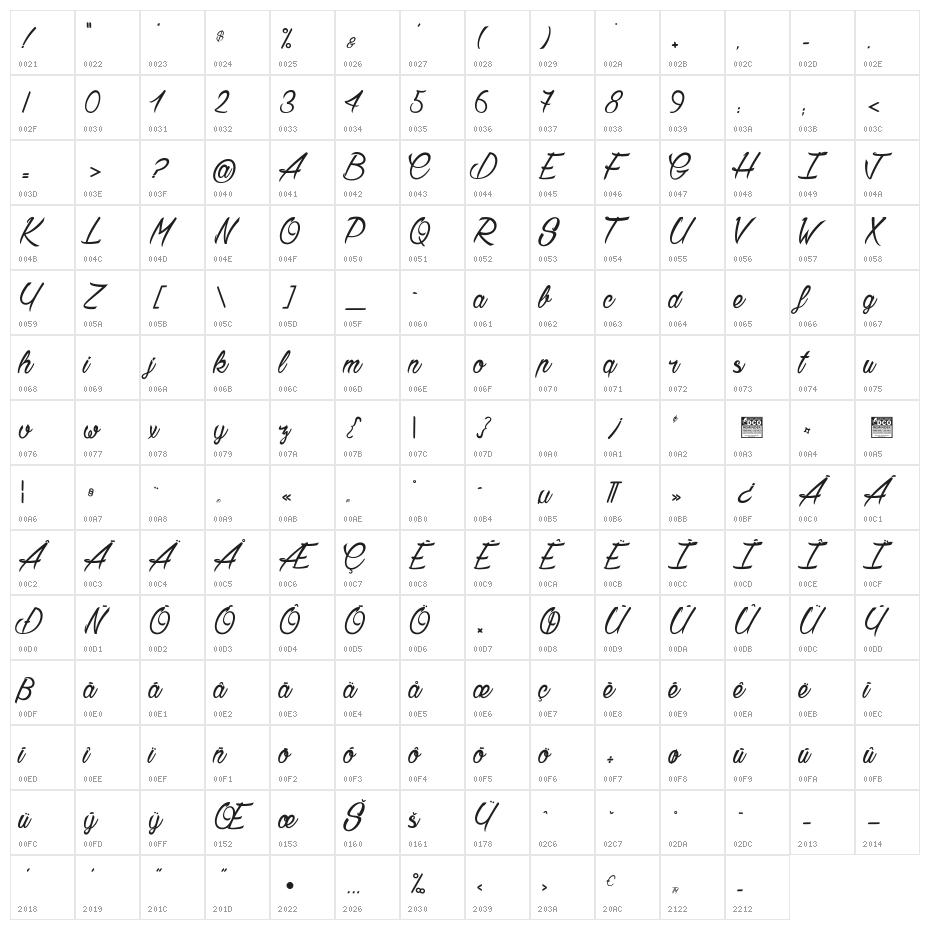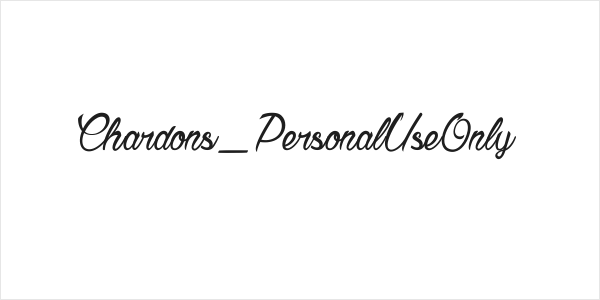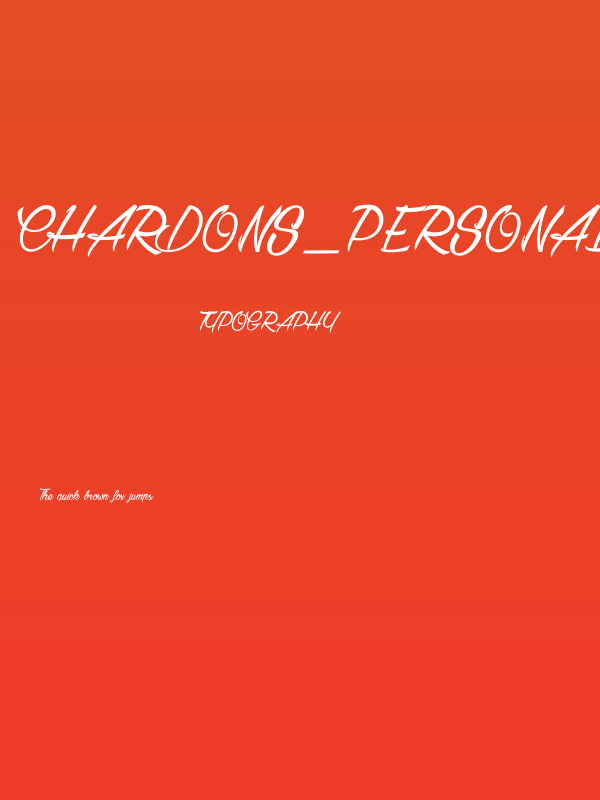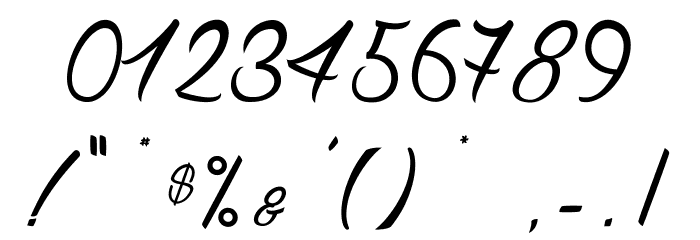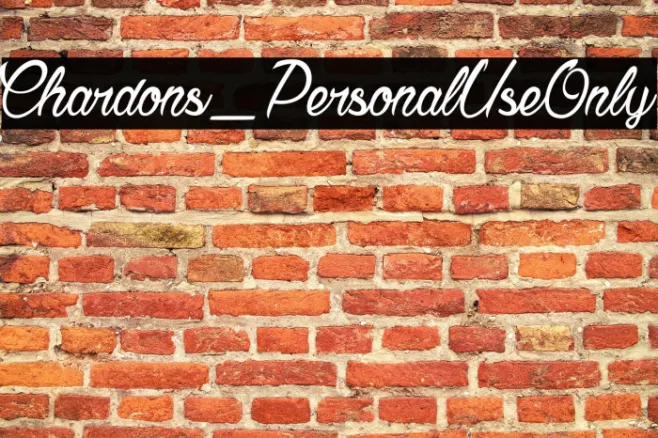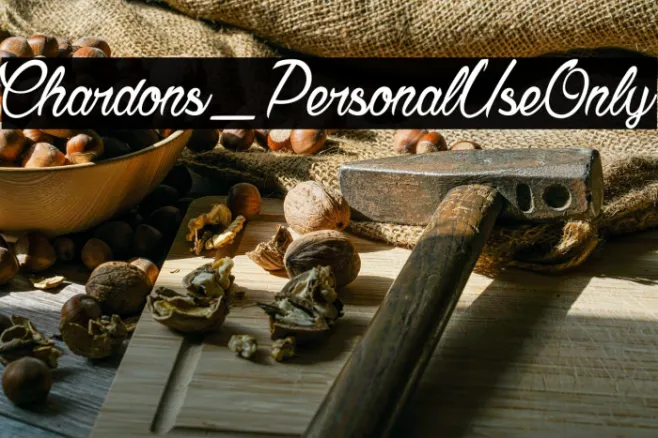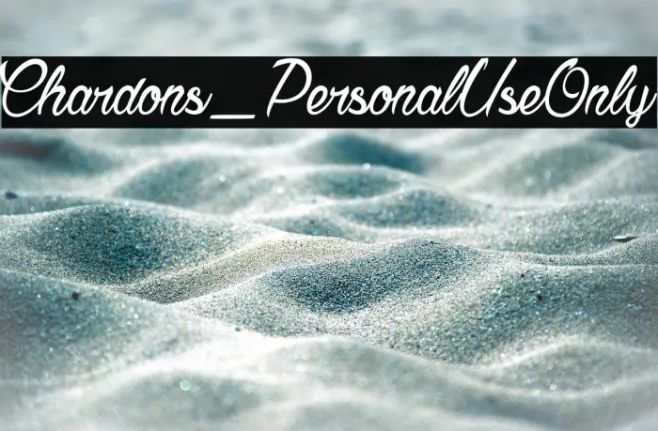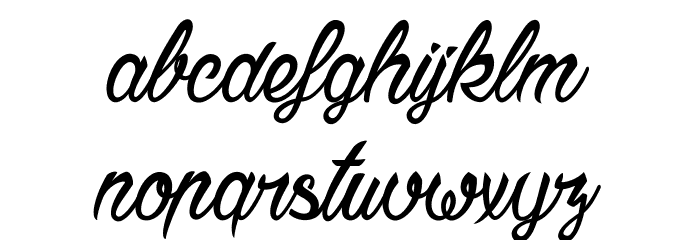
Chardons_PersonalUseOnly Font
Chardons_PersonalUseOnly Description
This font exudes a dynamic and elegant script style, characterized by its flowing, cursive letterforms. The uppercase letters are bold and slightly slanted, giving a sense of movement and grace. The lowercase letters maintain a consistent flow, with smooth connections between each character, enhancing readability while retaining a stylish flair. The numerals are well-proportioned and align harmoniously with the overall design. Special characters are thoughtfully integrated, maintaining the font's cohesive aesthetic. This font is ideal for projects that require a touch of sophistication and creativity.